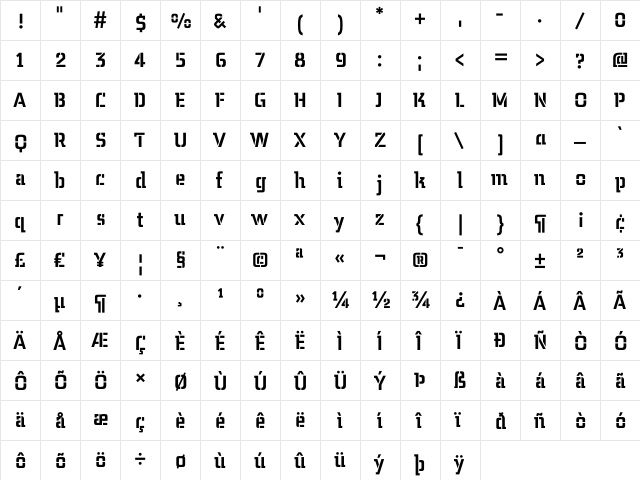
MidnightKernboyStencil Regular
Design Context for MidnightKernboyStencil Typeface
MidnightKernboyStencil borrows the utilitarian aesthetic of stencil lettering, with its characteristic cutaways and no-frills construction lending an industrial edge.
Ideal for industrial branding, streetwear, military-adjacent aesthetics, and urban signage projects.
Pro Tip: Pair MidnightKernboyStencil with raw, utilitarian design elements — exposed concrete textures, flat colour, and minimal ornamentation suit it well.